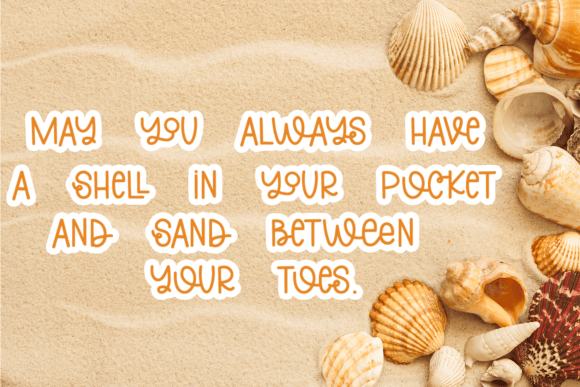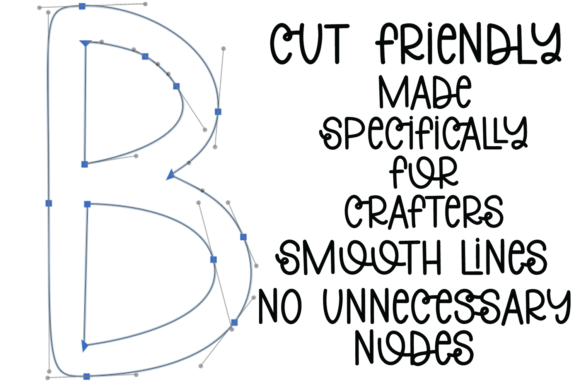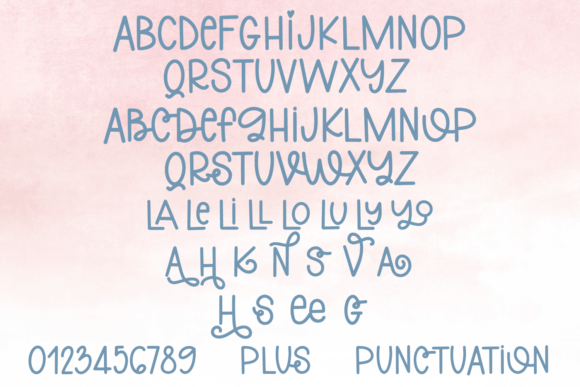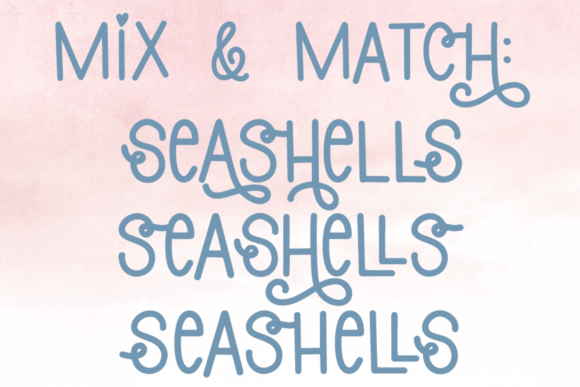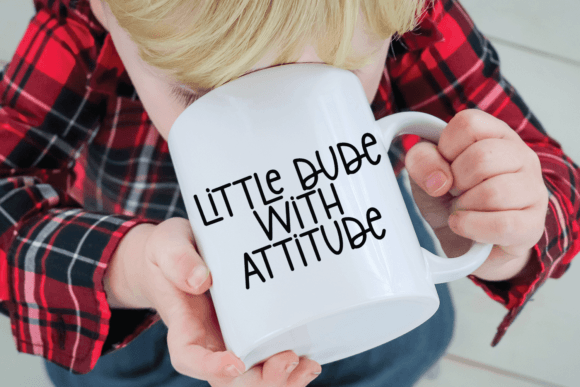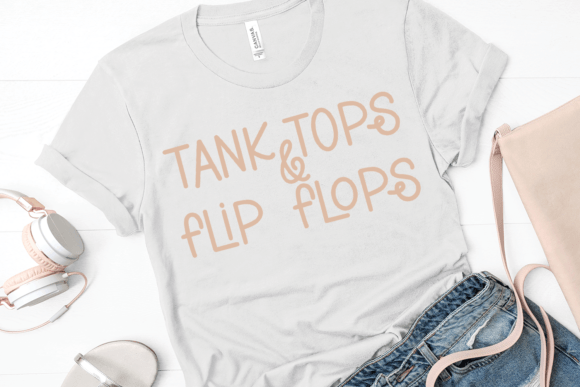
Dreaming of Sunshine Font: Elevate Your Designs with a Quirky Handcrafted Typeface
Are you tired of using the same old fonts in your designs? Look no further than the Dreaming of Sunshine font, a quirky and handcrafted typeface that’s perfect for adding a personal touch to your projects. In this article, we’ll introduce you to this unique font and explore the many ways you can use it to elevate your designs.
What is Dreaming of Sunshine Font?
Dreaming of Sunshine is a one-of-a-kind, handcrafted font that’s designed to bring a touch of warmth and personality to your designs. Its quirky and playful style makes it perfect for a wide range of projects, from artisanal crafts to digital designs.
Perfect for Artisanal Projects
If you’re a crafter or maker who loves working with Cricut or Silhouette machines, you’ll adore the Dreaming of Sunshine font. Its handcrafted style and unique glyphs make it perfect for creating custom signs, cards, and other DIY projects. You can also use it to enhance your SVG design business, creating custom files for clients that stand out from the crowd.
Distinctive Logos and Branding Efforts
Want to create a logo or brand identity that truly stands out? The Dreaming of Sunshine font is a great choice. Its quirky style and personalized feel make it perfect for businesses that want to convey a sense of warmth and approachability. Whether you’re just starting out or looking to rebrand, this font is sure to make a lasting impression.
Digital Planner Designs and Apps
Digital planners and apps like Goodnotes are becoming increasingly popular, and the Dreaming of Sunshine font is a great choice for adding a personal touch to your designs. Its handcrafted style and unique glyphs make it perfect for creating custom planner pages, stickers, and other digital embellishments.
Website and Blog Designs
Want to add a touch of personality to your website or blog? The Dreaming of Sunshine font is a great choice for headers, titles, and other design elements. Its quirky style and playful feel make it perfect for bloggers, small business owners, and anyone who wants to add a bit of whimsy to their online presence.
Sleek Print Designs
The Dreaming of Sunshine font is also perfect for print designs, such as magazines, flyers, and brochures. Its handcrafted style and unique glyphs make it a great choice for adding a touch of personality to your print materials. Whether you’re designing for a client or creating materials for your own business, this font is sure to make a lasting impression.
Header Elements and Motivational Quote Graphics
Want to create motivational quote graphics that truly stand out on social media? The Dreaming of Sunshine font is a great choice. Its quirky style and personalized feel make it perfect for creating custom graphics that inspire and motivate your followers. You can also use it to create header elements for your website or blog, adding a touch of personality to your design.
Delicate Graphic Designs for Women’s T-Shirts and Clothing
The Dreaming of Sunshine font is also perfect for delicate graphic designs for women’s t-shirts and other clothing items. Its handcrafted style and unique glyphs make it a great choice for creating custom designs that are both feminine and stylish.
One of the best things about the Dreaming of Sunshine font is that it’s PUA encoded, which means you can access all of the amazing glyphs and ligatures with ease. This makes it easy to get the most out of your font, creating custom designs that are truly one-of-a-kind.
In conclusion, the Dreaming of Sunshine font is a quirky and handcrafted typeface that’s perfect for designers and crafters who want to add a personal touch to their projects. With its unique style and PUA encoding, it’s a great choice for a wide range of designs, from artisanal crafts to digital designs. So why settle for a boring, generic font when you can add a touch of sunshine to your designs?